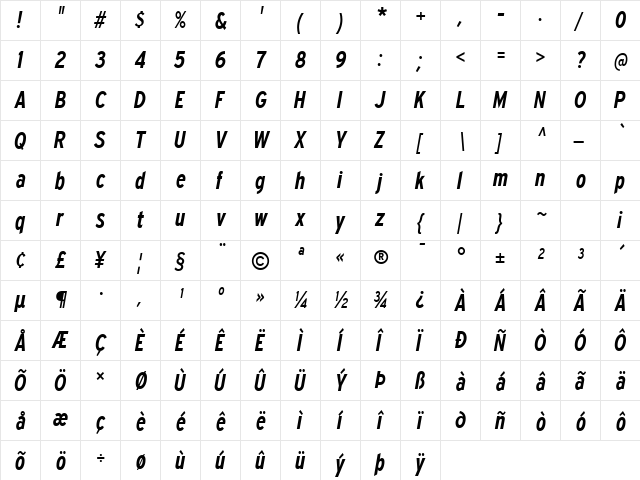
Expressway Condensed SemiBold Italic Font Preview
Design Context for Expressway Typeface
Expressway takes a measured approach to typography — its balanced proportions and neutral character make it a reliable workhorse for both digital and print work. The slanted form adds forward momentum and visual energy. The heavy weight commands attention and anchors typographic hierarchies. The condensed width makes it efficient for tight spaces without sacrificing legibility.
Pro Tip: Try Expressway for annotation and caption copy alongside an upright companion — the contrast in angle creates a dynamic but ordered typographic system.